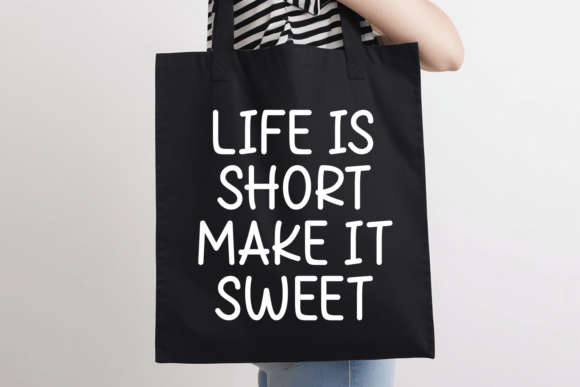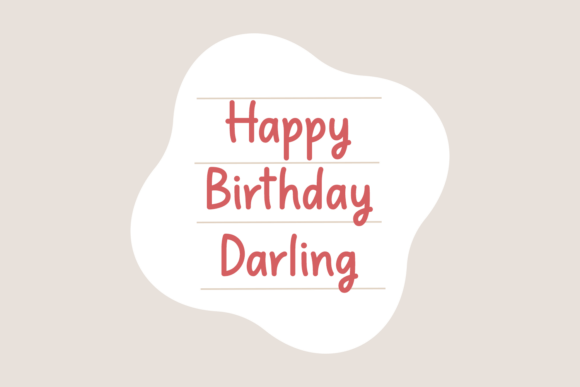
Introduction to Simple Check Font
Have you ever found yourself scribbling down notes in the margins of a design book, only to realize that your handwritten notes are the most inspiring part of the page? For designers, there’s something special about the imperfections of handwriting that can bring a touch of personality to even the most polished projects. That’s where the Simple Check Font comes in – a friendly, handwritten font that captures the essence of natural handwriting and adds a warm, inviting feel to any text.
As a valuable design resource, Simple Check Font is perfect for designers looking to add a personal touch to their creative projects. Whether you’re working on an invitation, a note, or any other project that requires a high-quality, handwritten feel, this font is sure to impress. With its clear and easy-to-read letters, Simple Check Font is a must-have for designers who want to bring a touch of whimsy and personality to their work.
Key Features of Simple Check Font
- High-quality design: This font features crisp, clean lines and a clear, readable design.
- Perfect for creative projects: Use Simple Check Font in graphic design, branding, and other creative projects where a simple, modern design is required.
- Design resource: Simple Check Font is a versatile design resource that can be used in a variety of contexts, from logos to labels and beyond.
Honest Review: Simple Check Font
As a designer, I’m always on the lookout for high-quality design resources that can elevate my creative projects. The Simple Check Font caught my eye with its clean and minimalistic design. I decided to give it a try and see how it performs.
Here are some things that work well with this font: ✨ It’s incredibly versatile and can be used for a wide range of creative projects, from graphic design to web development. ✨ The transparent background feature makes it easy to layer with other design elements. ✨ It’s a free download, which is a huge plus for designers on a budget.
- High-quality design that’s perfect for modern creative projects
However, I did encounter some limitations with this font: ⚠️ The font size and style can be a bit limited, which may not be suitable for all design projects. ⚠️ Some users may find the font too plain and lacking in personality.
Overall, I would give the Simple Check Font 4 out of 5 stars. While it’s not perfect, it’s a solid design resource that can add a touch of sophistication to your creative projects. With a little creativity, you can overcome its limitations and achieve stunning results.
Simple Check Font
Getting the Most Out of Simple Check Font
For the best results, use Simple Check Font on a high quality design project. This font is perfect for creating eye-catching graphics, labels, and signs. You can also use it to create a consistent brand identity for your business. To get the most out of this font, use it in combination with other design elements, such as shapes and images.
Simple Check Font is commonly used in a variety of creative projects, including infographics, presentations, and marketing materials. It’s also perfect for creating labels, signs, and other visual elements. With its high quality design and transparent background, Simple Check Font is a versatile font that can be used in a wide range of applications.
Q: Is Simple Check Font a design resource that can be used in conjunction with other fonts?
A: Yes, Simple Check Font is designed to be used in conjunction with other fonts, making it a valuable addition to any designer’s toolkit. You can use it as a standalone font or combine it with other fonts to create unique and visually appealing typography for your creative project.